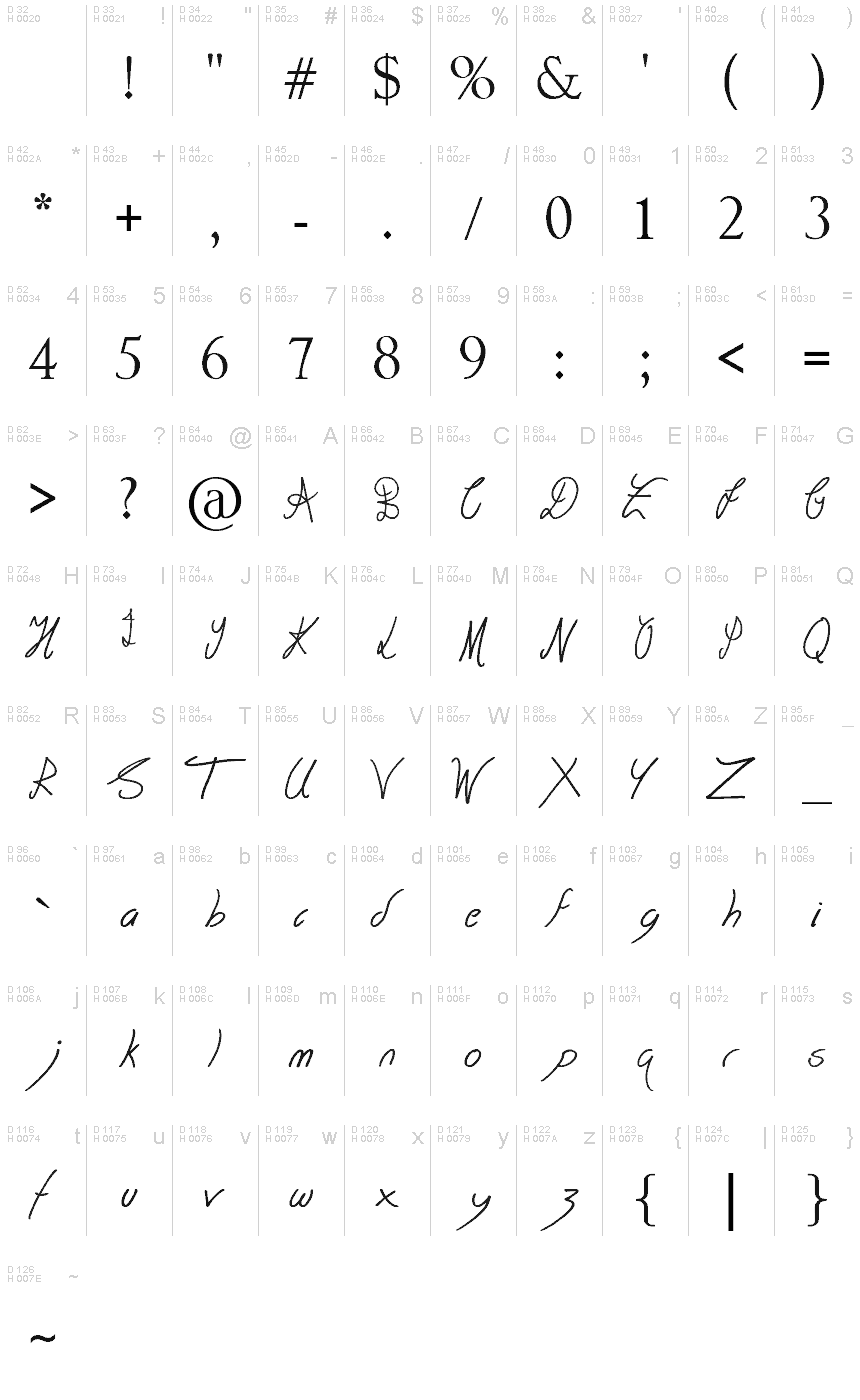
Together Again
Together Again, a delightful creation from TattooWoo.com, embodies the essence of handwritten charm with its light and airy strokes. This font captures the intimacy of a personal note with its fluidity and expressive style, making it an excellent choice for designs that require a touch of personal elegance.
With its aesthetic appeal that evokes the warmth of human touch, Together Again is not just a font but an experience of reconnecting through script. The delicate weight complements its style, ensuring that each character gracefully dances across the page.
Perfect for invitations, greeting cards, and branding that seeks to convey emotion and closeness, Together Again brings an authentic handwritten feel to any creative project. Its versatility allows it to fit seamlessly into both casual and formal contexts where the human element is celebrated.